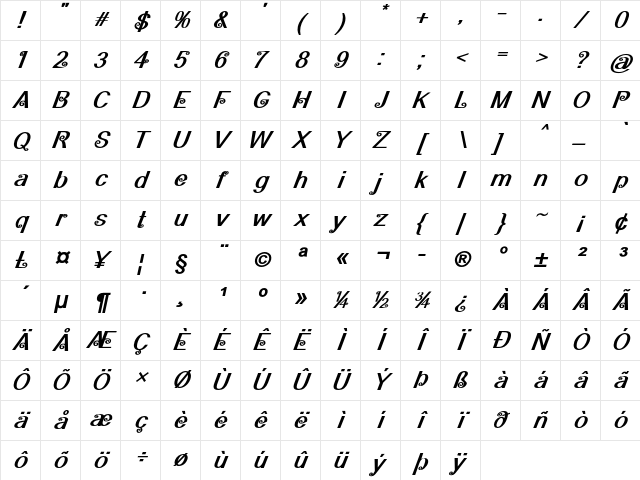
Presta Bold Italic
Presta Family
Presta Bold Italic
Design Context for Presta
Presta is a composed and adaptable typeface that performs quietly and consistently across a wide range of design contexts. The slanted form adds forward momentum and visual energy. Its bold stroke weight gives it real presence on the page.
Pro Tip: Use Presta for emphasis, pull quotes, and subheadings where its slanted energy can add rhythm to the layout.